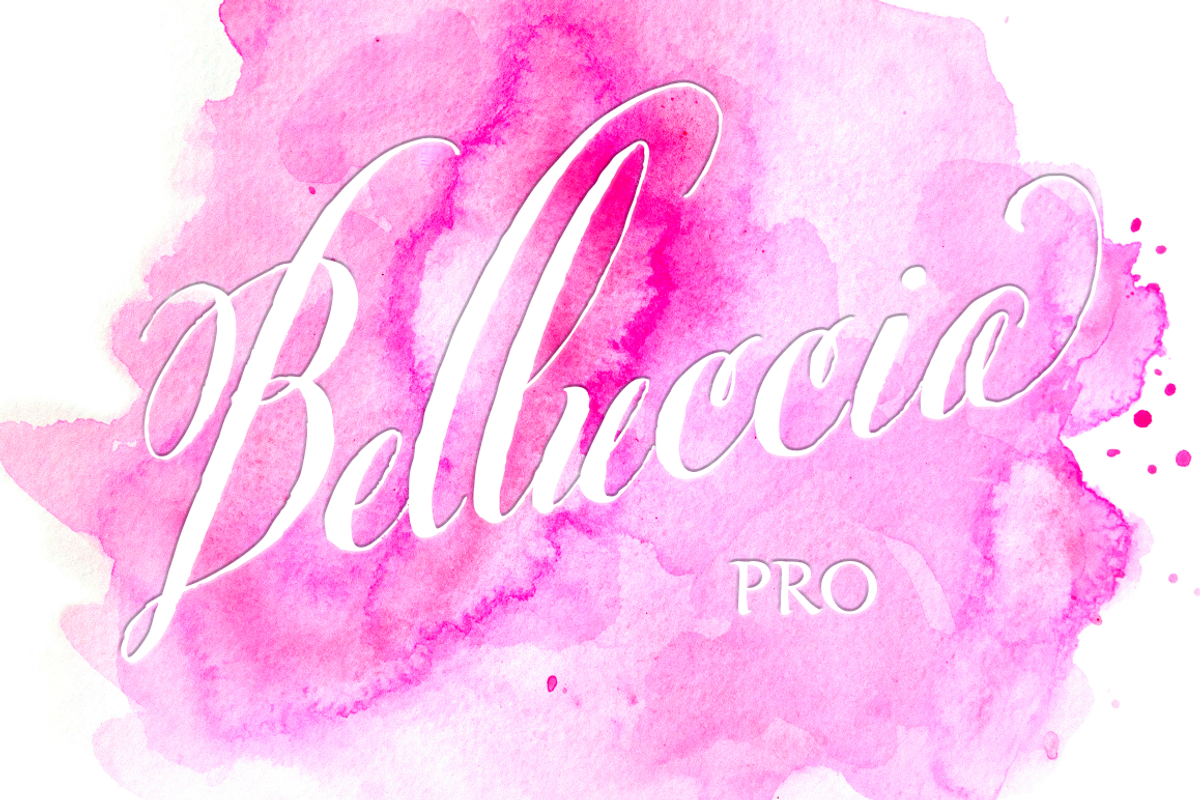
Belluccia Pro Font Free Download
Please note, to use this font for commercial purposes, you must purchase the full version. Belluccia Pro is an elegant and sophisticated calligraphy font that brings a touch of luxury and refinement to any design. With its delicate, flowing letterforms, this font is perfect for wedding invitations, high-end branding, elegant stationery, and more. Whether you're creating a timeless logo or designing a beautiful invitation, Belluccia Pro adds a graceful and classic flair to your work. Test it out and enjoy free download access for personal use. Get a feel for the beauty of Belluccia Pro Font Free Download before purchasing the commercial version. Elevate your projects with the exquisite charm of Belluccia Pro.